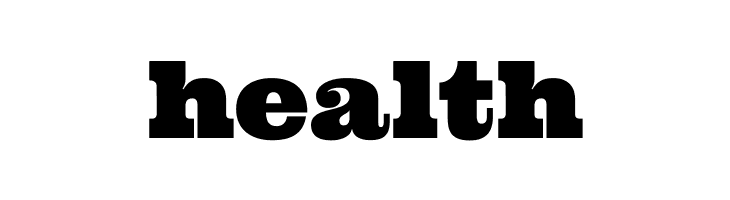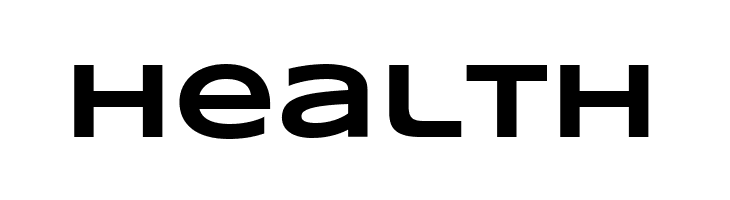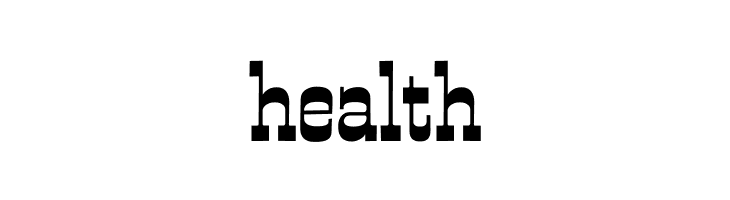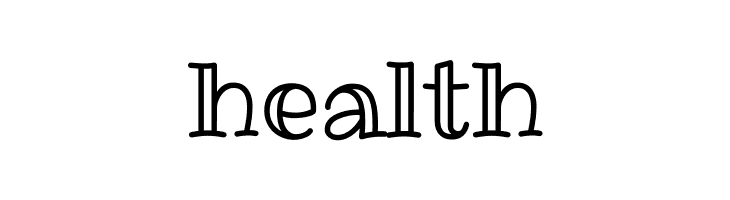
• Maiden Orange
A bold, playful serif font with vintage charm and rounded serifs.
• Ultra
A bold slab serif font with strong, block-like serifs and high contrast.
• Syncopate Bold
• Montez
A charming and elegant script font with fluid, graceful strokes.
• Yellowtail
A lively, cursive script font with smooth, connected strokes.
• Devonshire-Regular
A bold, expressive script font with flowing, connected letterforms.
• Smokum
A bold slab serif font with a vintage Western flair.
• Ribeye
A playful, bold font with high contrast and unique curves.
• Ribeye Marrow
A playful, decorative font with bold, hand-drawn characters and whimsical curves.
• Righteous
A bold, geometric sans-serif font with a modern and clean design.